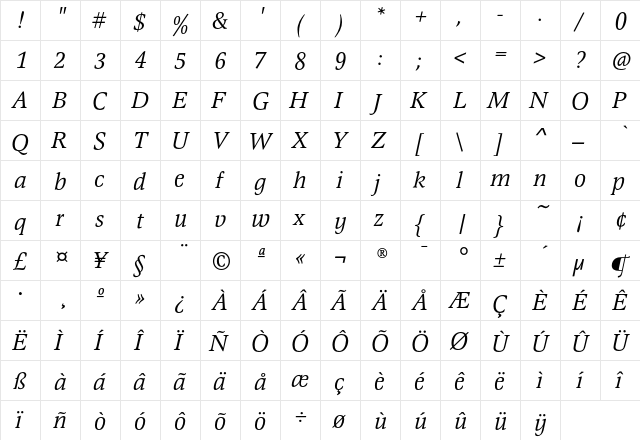
MagnaEF Italic
Design Context for MagnaEF Typeface
MagnaEF is a composed and adaptable typeface that performs quietly and consistently across a wide range of design contexts. The slanted form adds forward momentum and visual energy.
Pro Tip: Try MagnaEF for annotation and caption copy alongside an upright companion — the contrast in angle creates a dynamic but ordered typographic system.